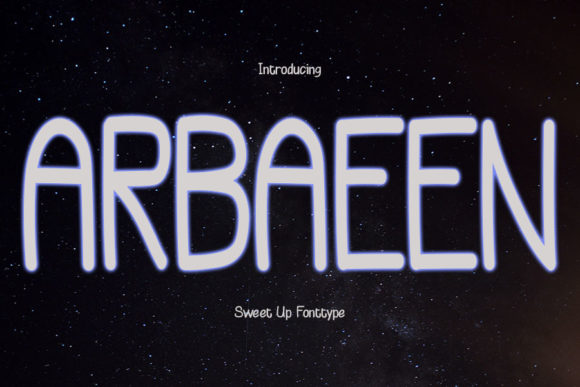
The Arbaeen Font: A Cool, Informal, and Adaptable Handwritten Style
An Honest Review of Arbaeen
So, what makes Arbaeen special? Here are some things I love about this font:
- ✨ Simple yet strong visual effect: Arbaeen has a way of making your text stand out without being too over-the-top.
- ✅ Highly adaptable: Whether you’re designing a logo, a poster, or a social media graphic, Arbaeen fits right in.
- 💃 Informal and cool: This font has a laid-back feel that’s perfect for brands or projects that want to appear friendly and approachable.
Of course, no font is perfect, and Arbaeen has a few quirks:
- ⚠️ Limited formal use: Arbaeen is best suited for informal designs. It might not be the best choice for more formal or corporate projects.
- 🤔 Some letters may appear a bit inconsistent: As with many handwritten fonts, there might be slight variations in letterforms, which can be a minor challenge for certain designs.
The Backstory of Arbaeen
Arbaeen was inspired by the beauty of handwritten notes and letters. Its creator aimed to capture the essence of informal, everyday writing while maintaining a level of sophistication. The result is a font that’s both approachable and visually appealing.
| What makes Arbaeen unique? | Arbaeen’s uniqueness lies in its simple yet strong visual effect, making it perfect for informal designs. |
| Does Arbaeen support OpenType features? | Yes, Arbaeen supports OpenType features, allowing for more creative typography. |
| Is Arbaeen suitable for body text? | While Arbaeen can be used for body text, it’s primarily designed for headlines and short text passages due to its handwritten nature. |
In conclusion, Arbaeen is a versatile and charming font that’s sure to elevate your designs. Its informal, adaptable nature makes it perfect for a wide range of creative projects. By understanding its features and how to use it effectively, you can unlock the full potential of Arbaeen in your designs.